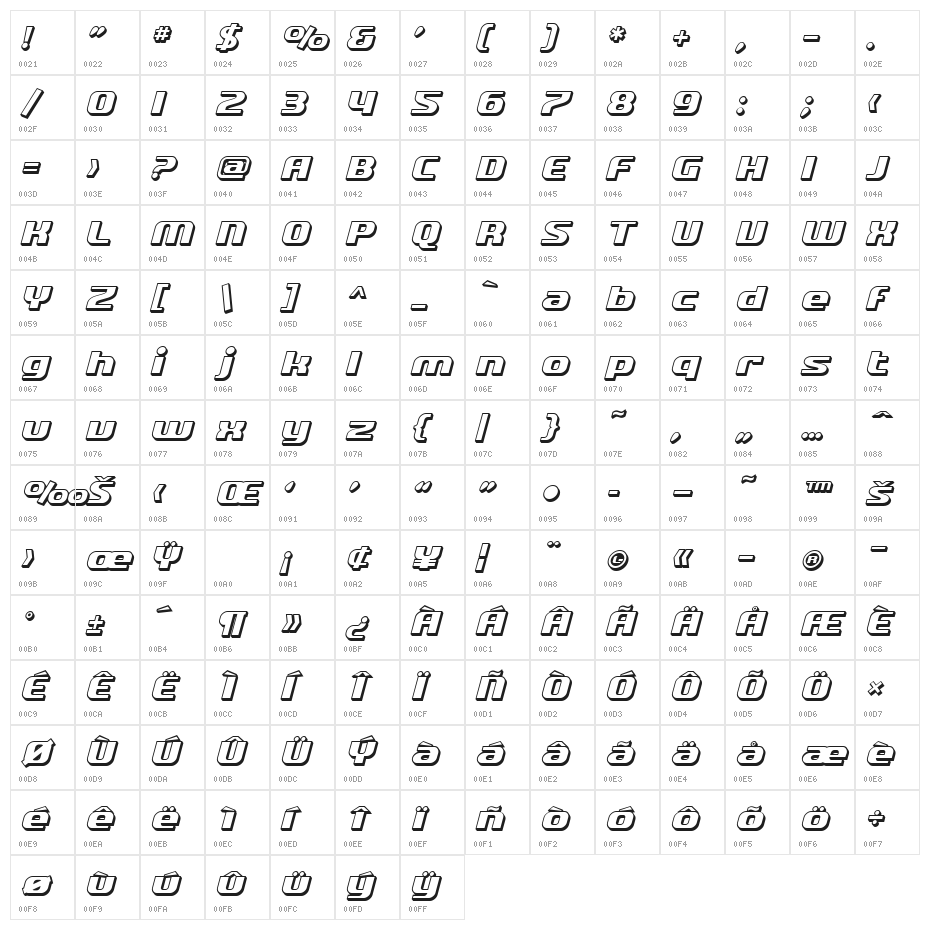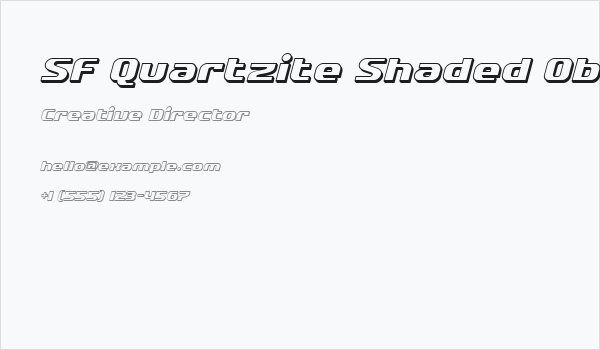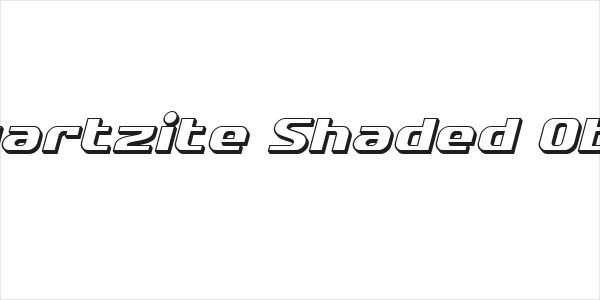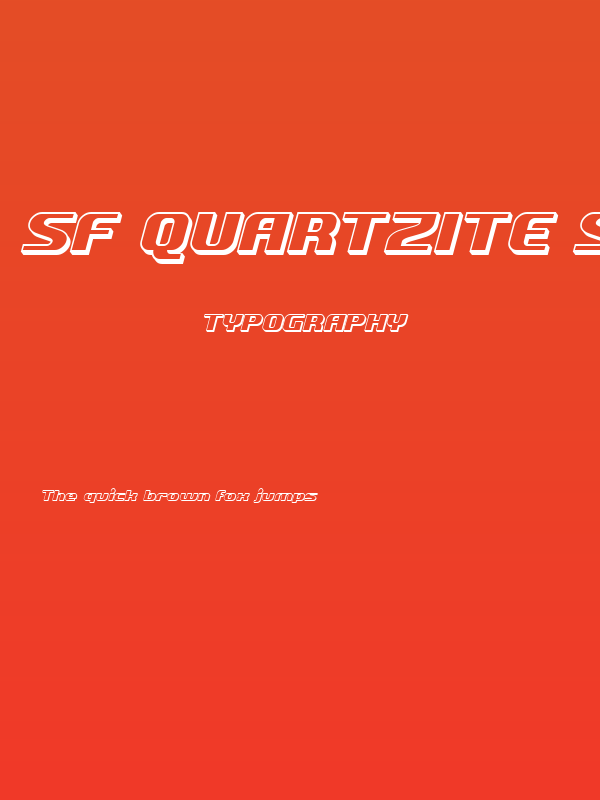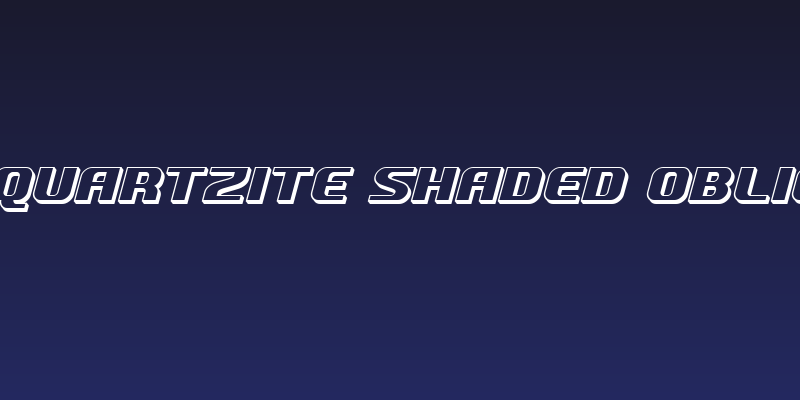
SF Quartzite Shaded Oblique Font
SF Quartzite Shaded Oblique Description
This font features a bold, dynamic style with a distinct oblique slant, giving it a sense of movement and energy. The characters are outlined with a shaded effect, adding depth and a three-dimensional appearance. The uppercase and lowercase letters maintain a consistent design, with rounded edges and a uniform stroke width. The numerals and special characters follow the same stylistic approach, ensuring cohesion across all elements. This font is ideal for creating eye-catching headlines or logos that require a modern and impactful look.
| Proposed Projects | Ideal for sports branding, dynamic posters, modern advertising, and eye-catching headlines. |